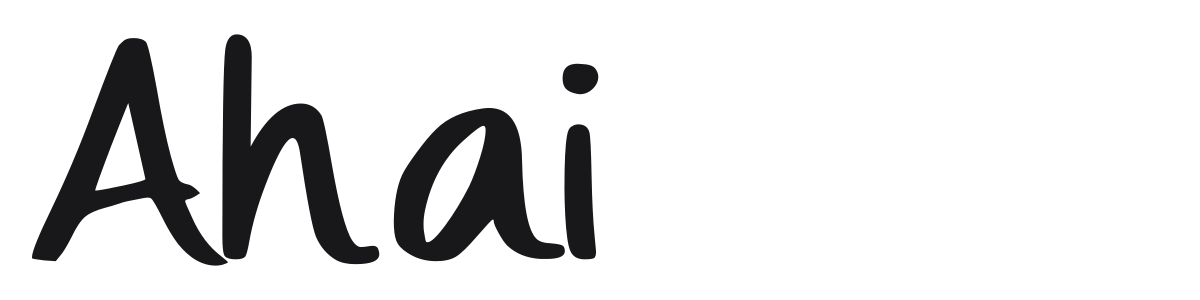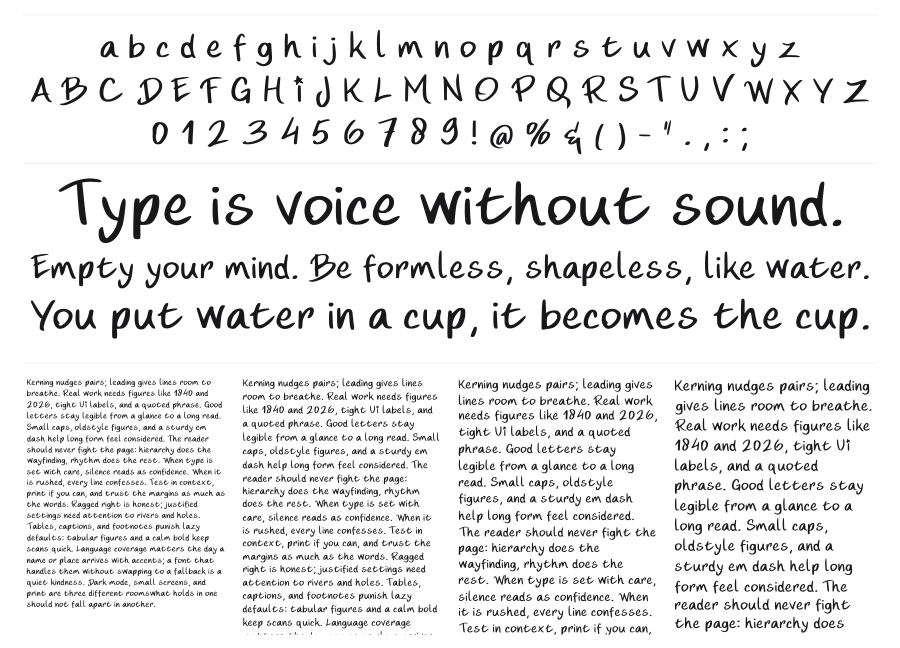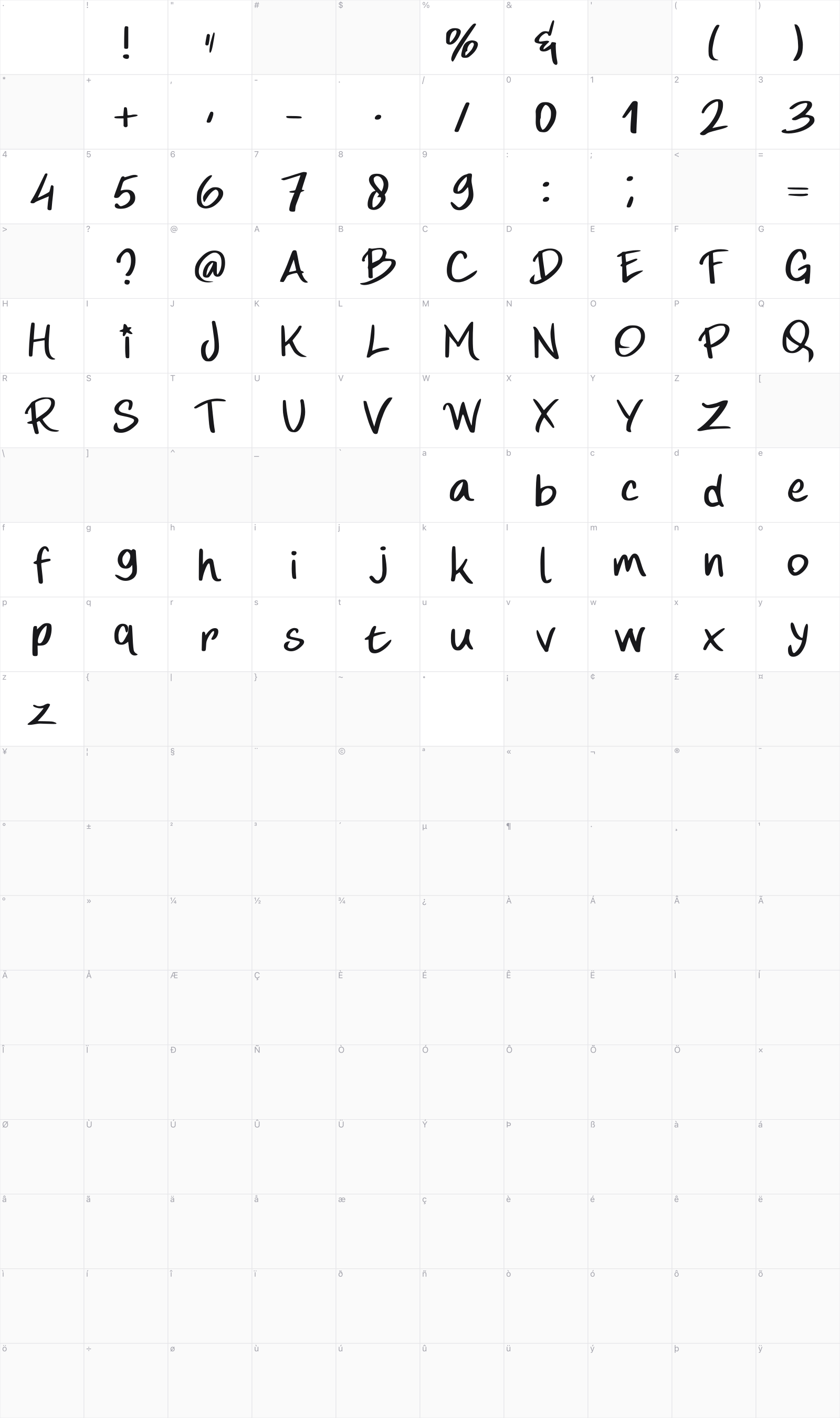
Ahai
Ahai is a casual handwritten font with rounded, pen-like strokes and a natural, unforced rhythm. The slight irregularity in its characters keeps it feeling genuinely hand-drawn rather than mechanical. It works across a wide range of informal contexts, from packaging labels to social media graphics.